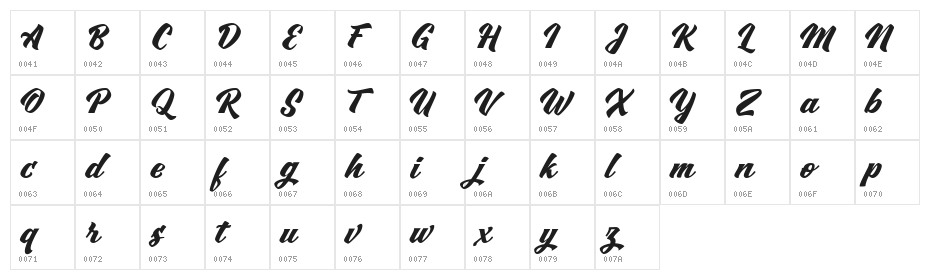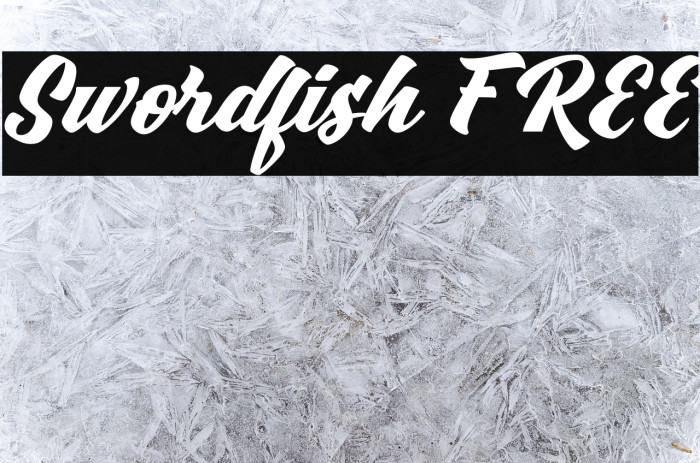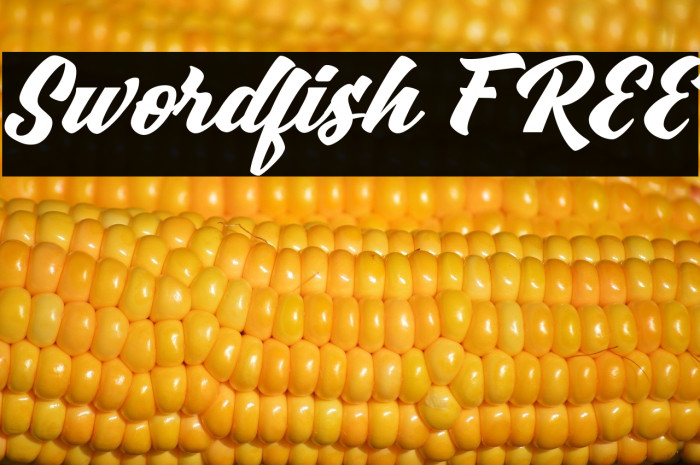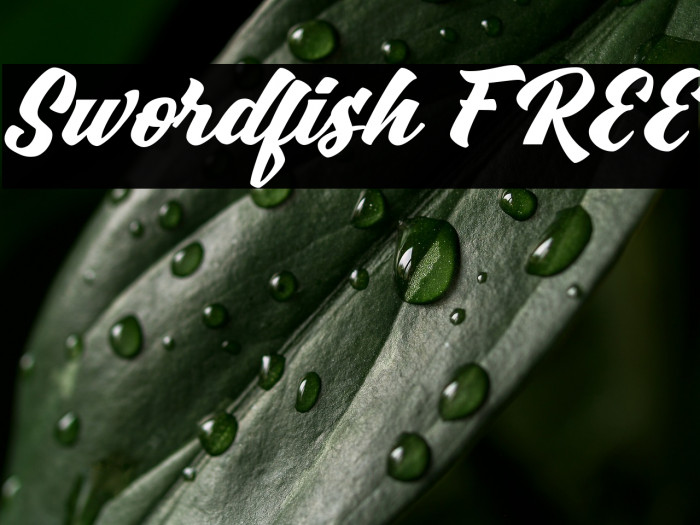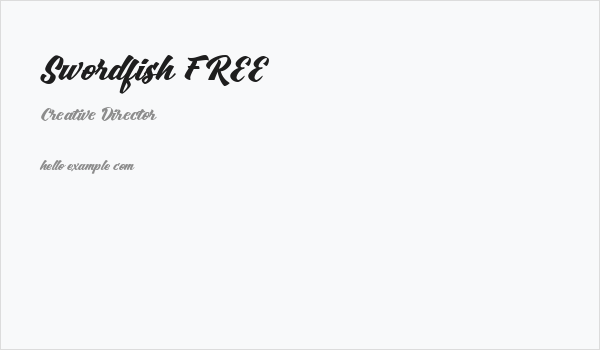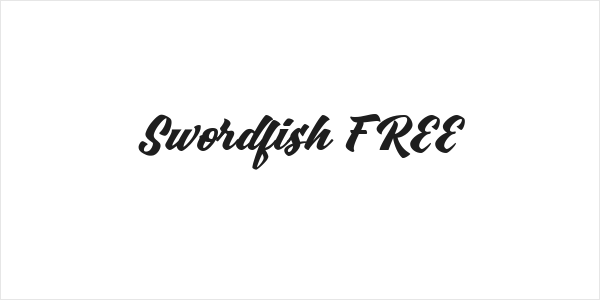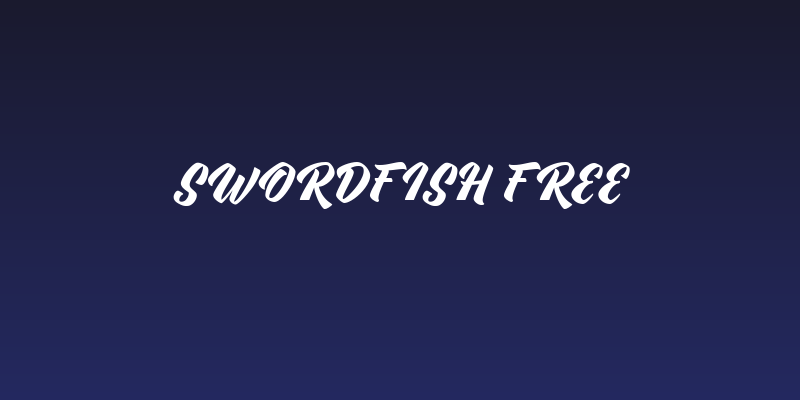
Swordfish FREE Font
Swordfish FREE Description
This font exudes a bold and dynamic script style, characterized by its flowing, cursive letterforms that convey a sense of elegance and movement. The strokes are thick and consistent, providing a strong visual impact. Each character is carefully crafted with smooth curves and sharp edges, creating a harmonious balance between fluidity and precision. The uppercase letters are particularly striking, with their dramatic flourishes and sweeping lines, while the lowercase letters maintain a graceful continuity. This font is ideal for projects that require a touch of sophistication and flair, such as invitations, branding, and headlines. Its bold presence ensures readability while adding a decorative touch to any design.
Use CaseHeadlines, Logos, Invitations
Proposed ProjectsIdeal for invitations, branding, headlines, and any design needing elegance and flair.